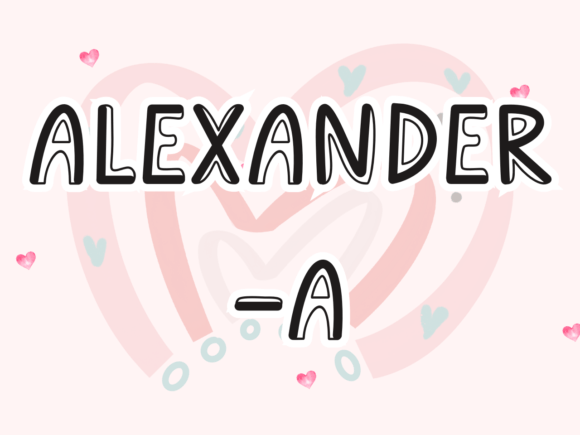
Introducing Alexander Font: The Perfect Match for Your Next Creative Project Have you ever been stuck in a creative rut, staring at a blank page, and suddenly, a burst of inspiration strikes? You envision a playful, modern design that captures the essence of youth and innocence. That’s where Alexander Font comes in – a fun…